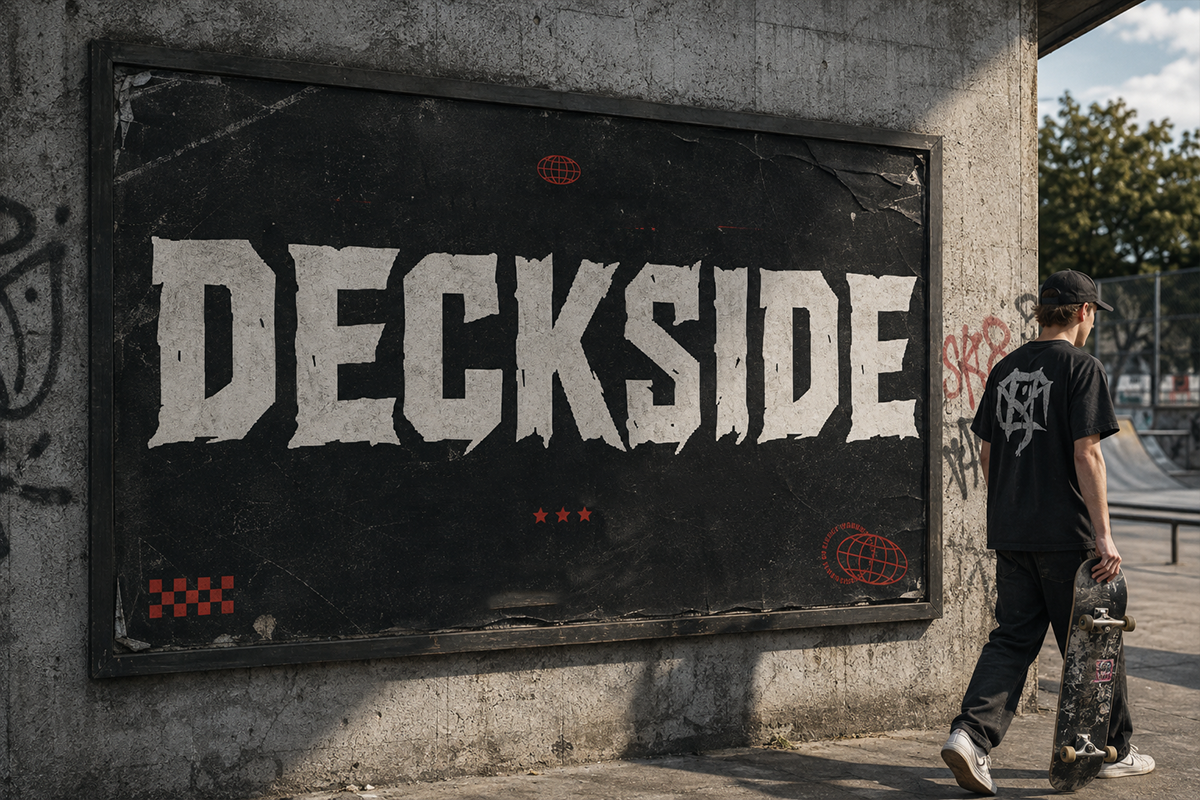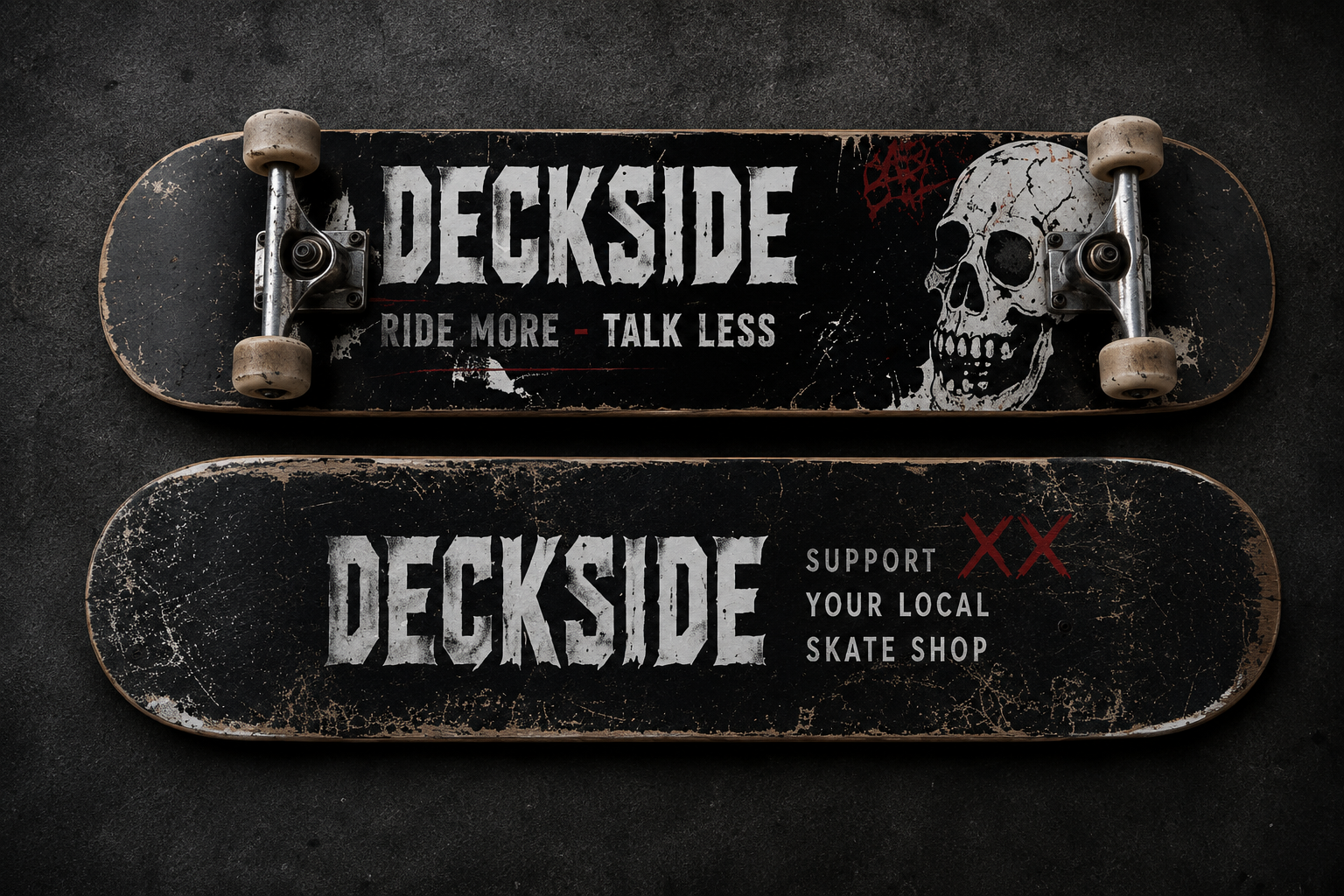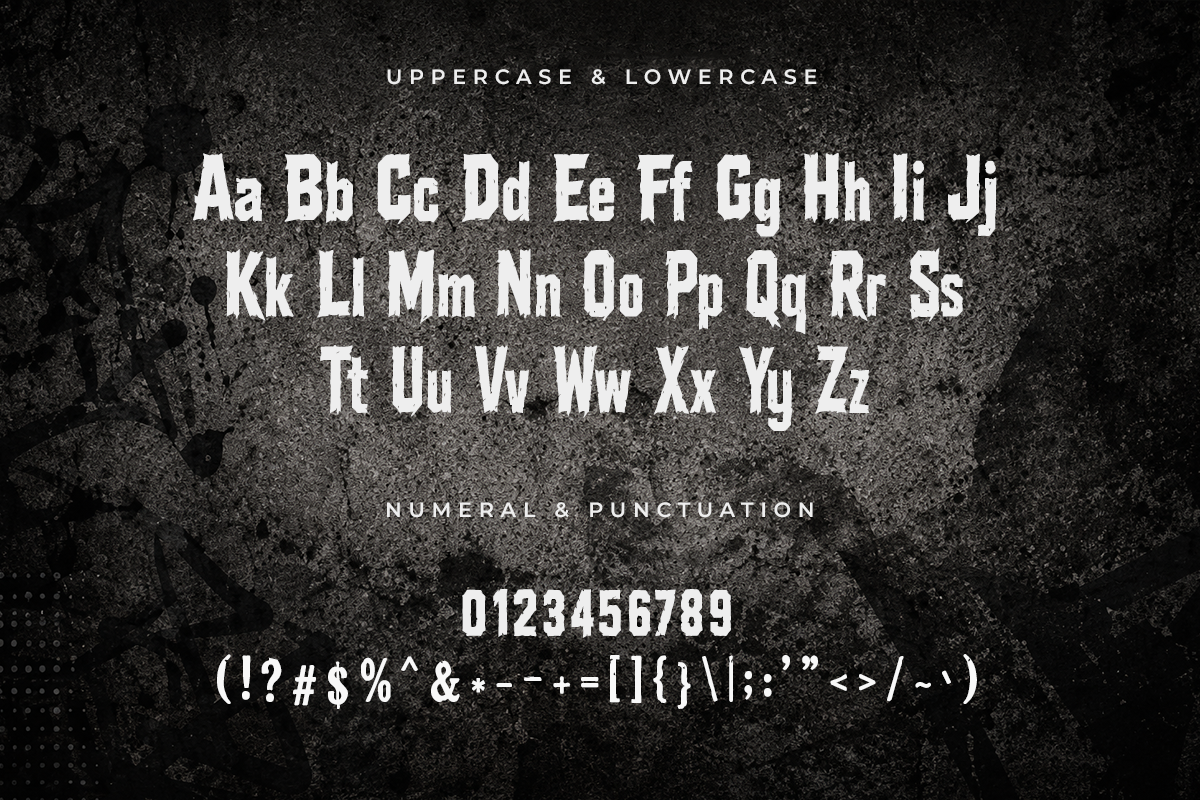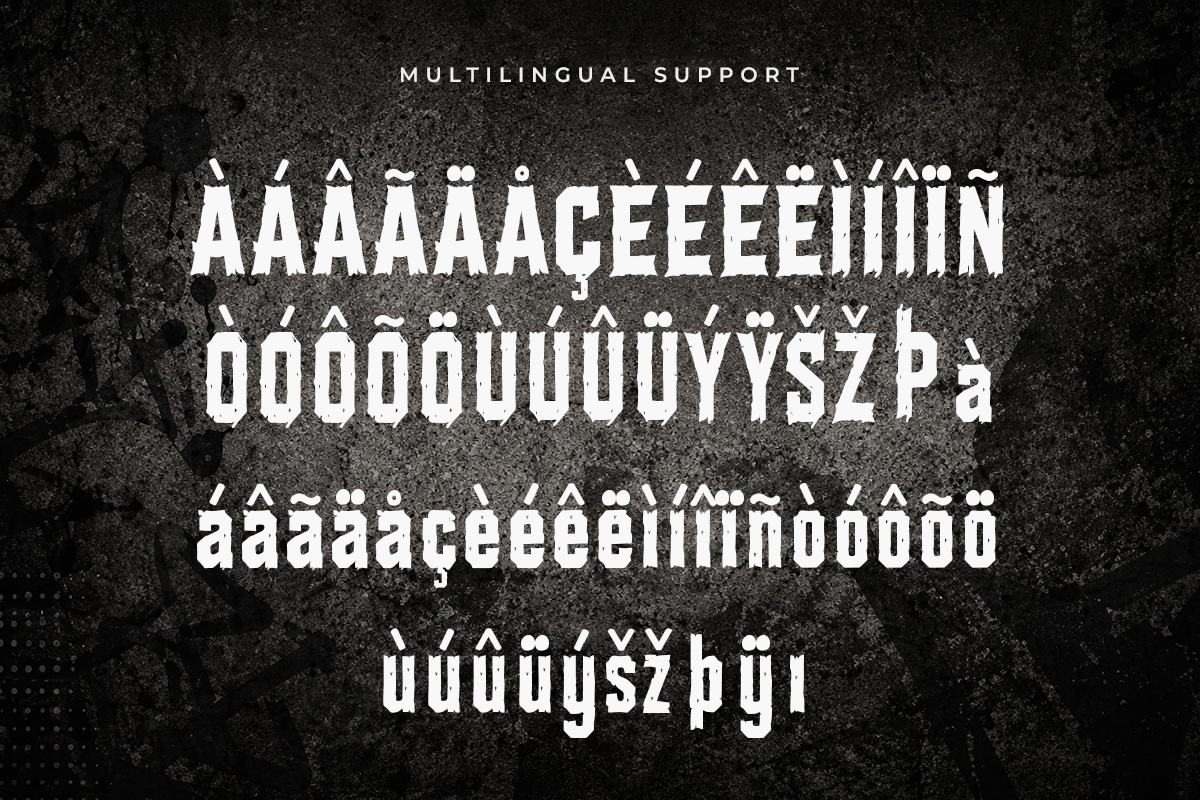
Deckside is a bold modern street grunge display font built for designs that need raw energy, attitude, and a strong urban presence. Featuring sharp edges, distressed textures, and rugged letterforms, this typeface delivers a powerful handcrafted look inspired by skate culture, streetwear, BMX, underground posters, and alternative branding.
Deckside works especially well for logos, apparel, posters, album covers, sports graphics, skateboard designs, event flyers, merchandise, social media posts, packaging, and bold editorial layouts.
Its aggressive silhouette and worn texture make it ideal for headlines and statement typography that needs to feel rebellious, energetic, and authentic.